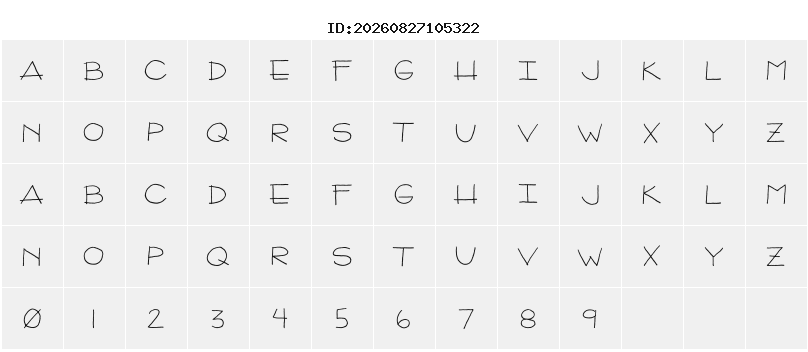
• Font Name: 2Peas Arizona
• Font Style: 2Peas Arizona
• Full Font Name: 2Peas Arizona
About 2Peas Arizona.ttf
2Peas Arizona.ttf is a modern, elegant sans-serif font designed for ultimate readability and visual harmony. Perfect for branding, headlines, web design, and print materials.